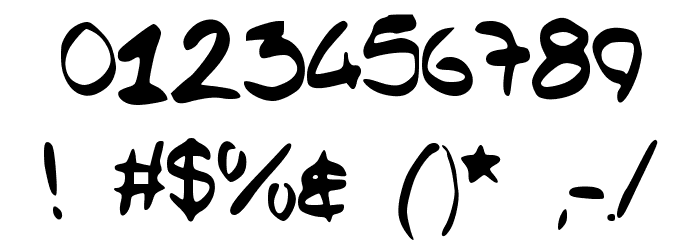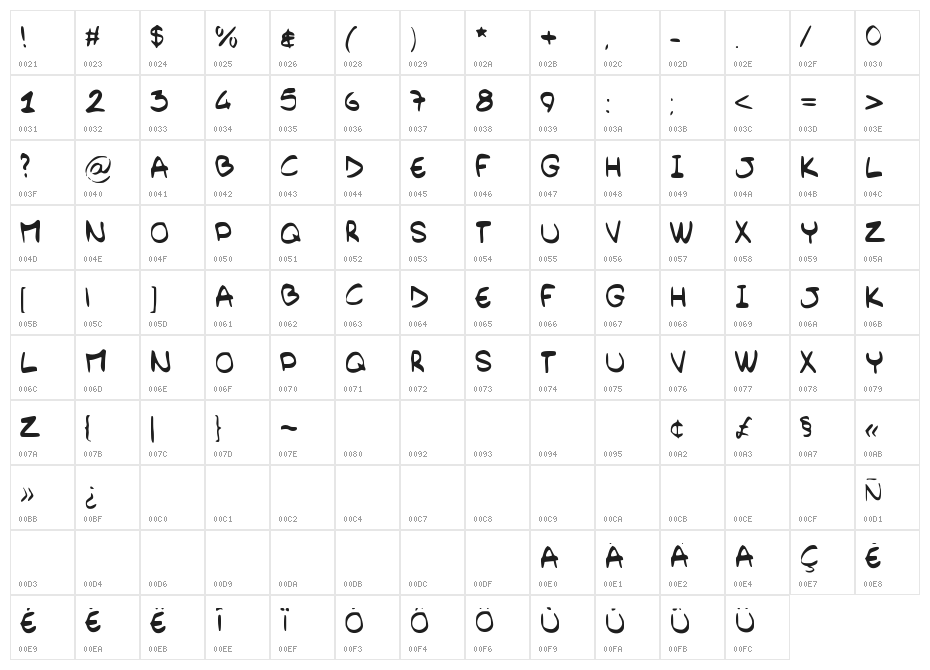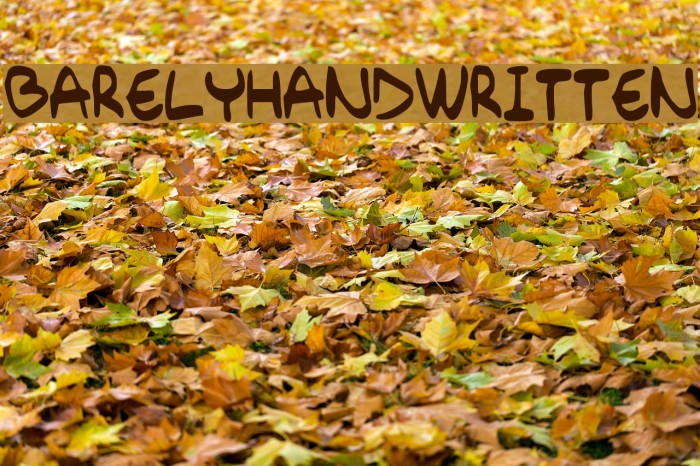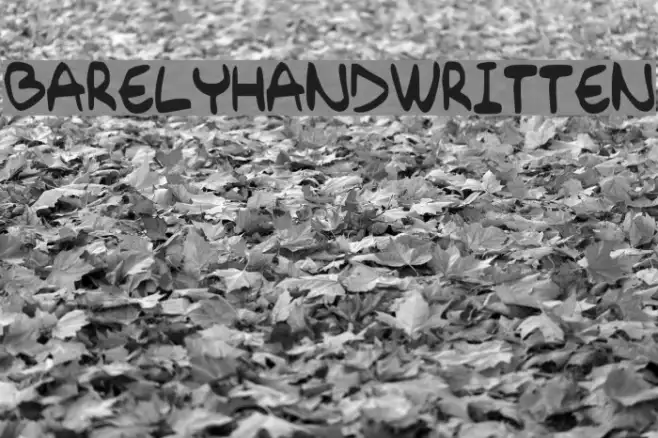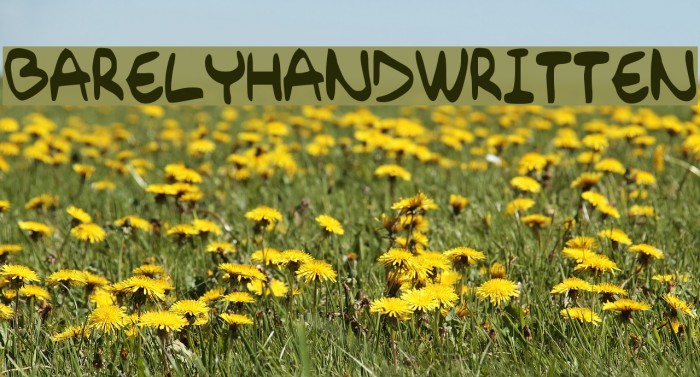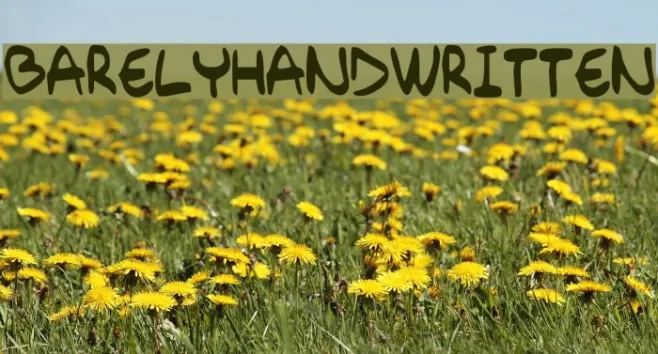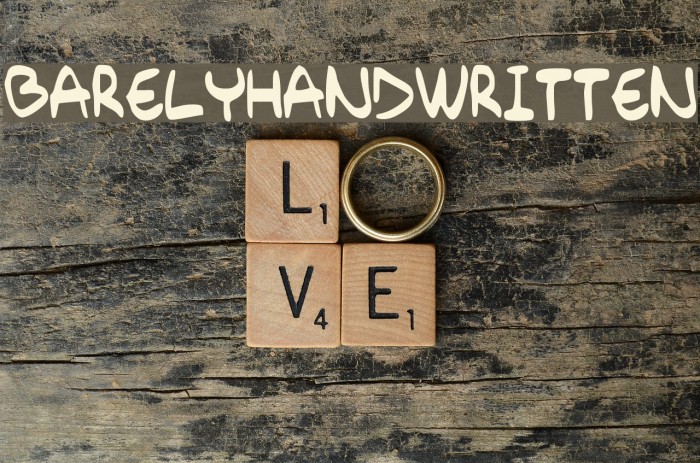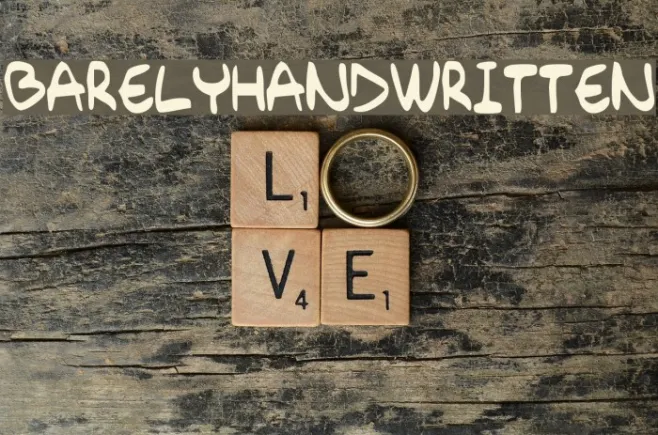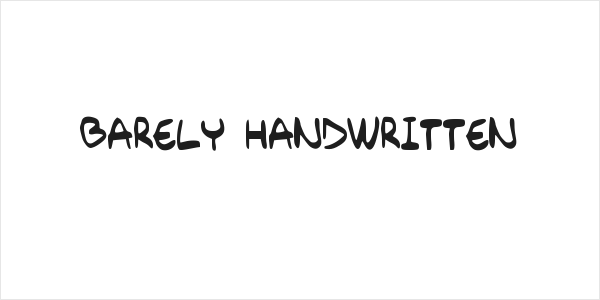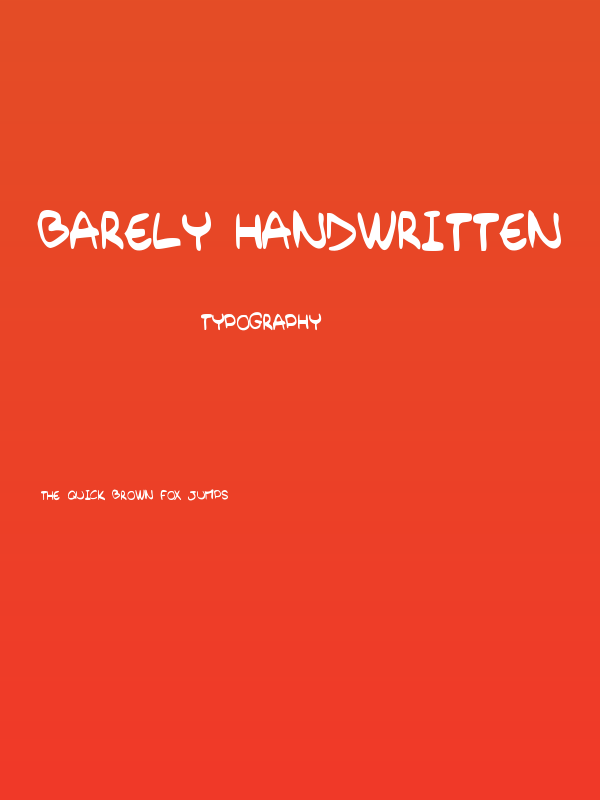
Barely_Handwritten Font
Barely_Handwritten Description
This font exudes a playful and casual handwritten style, characterized by its bold and slightly irregular strokes that mimic the natural flow of handwriting. The letters are rounded and somewhat exaggerated, giving them a whimsical and friendly appearance. The uppercase and lowercase letters maintain a consistent style, with a slight slant that adds to the informal feel. The numbers and special characters follow the same design principles, ensuring a cohesive look across all elements. This font is perfect for projects that require a personal touch, such as greeting cards, invitations, or playful branding.